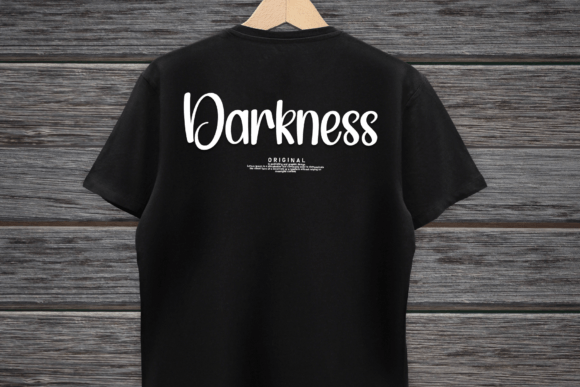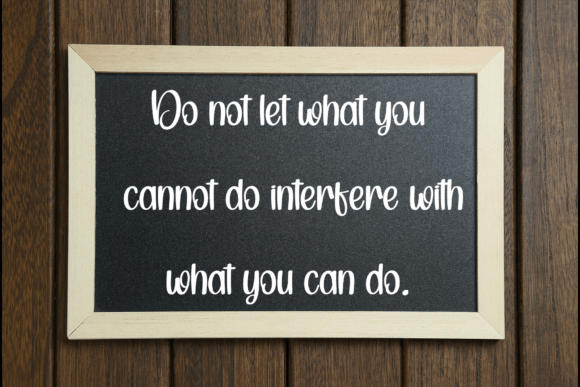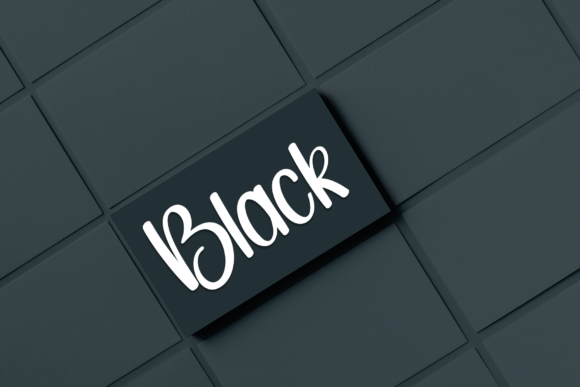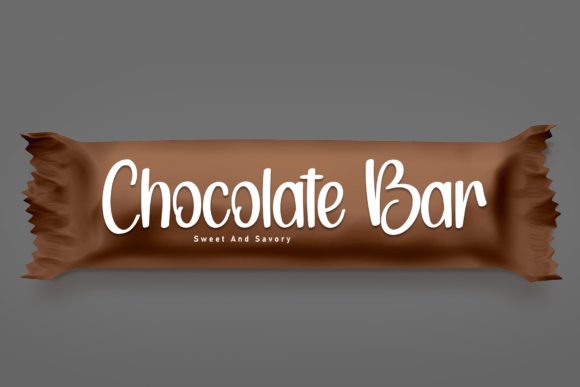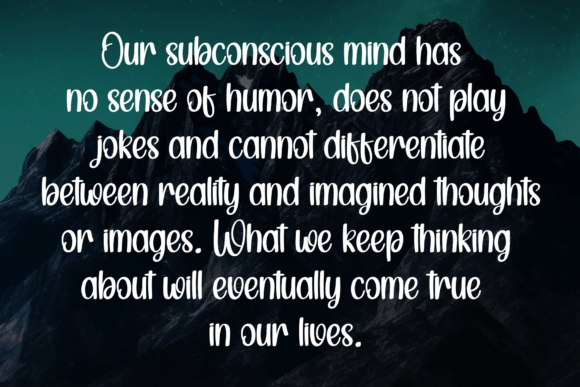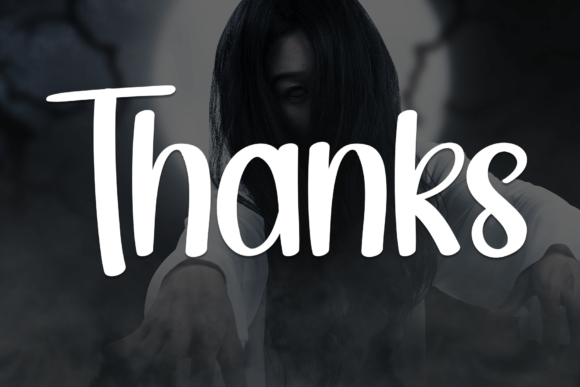
The Fright Maiden Font: A Sweet and Friendly Companion for Your Designs
I’ll never forget the moment I stumbled upon the Fright Maiden font. I was working on a project for a client who wanted a custom wedding invitation, and I was struggling to find the perfect font. The design needed to be elegant, yet playful; sophisticated, yet approachable. As I scrolled through my font library, I came across Fright Maiden, and it was love at first sight! ✨
This sweet and friendly handwritten font has become a staple in my design toolkit, and I’m excited to share its charm with you. In this article, we’ll explore what makes Fright Maiden special, its uses, and some practical tips on how to get the most out of it.
- ✨ Unique and natural style: Fright Maiden has a distinct, hand-crafted feel that sets it apart from more generic fonts.
- ✅ Versatility: This font can be used for a wide range of projects, from wedding invitations to branding, and even digital media.
- 💕 Emotional connection: Fright Maiden has a warm, friendly vibe that can help create an emotional connection with your audience.
While Fright Maiden is an excellent font, it’s not perfect. Here are a few things to keep in mind:
- ⚠️ Legibility at small sizes: Like many handwritten fonts, Fright Maiden can become a bit tricky to read at very small sizes. Make sure to test it at different sizes to ensure it’s legible for your project.
- 🤔 Overuse of swashes: While Fright Maiden has some beautiful swashes and stylistic alternates, be careful not to overuse them. Too many swashes can make your text look cluttered and messy.
The Story Behind Fright Maiden
Fright Maiden was designed with the intention of creating a font that was both sweet and friendly. The designer wanted to craft a font that would evoke a sense of warmth and approachability, making it perfect for designs that require a personal touch.
Q: Is Fright Maiden suitable for body text?
A: While Fright Maiden is a beautiful font, it’s best suited for headlines and titles. Its unique style and hand-crafted feel make it less suitable for long blocks of body text.
Q: Does Fright Maiden have any special features?
A: Yes, Fright Maiden has a range of OpenType features, including swashes, stylistic alternates, and glyphs. These features can help you create unique and customized designs.
Q: Is Fright Maiden easy to read?
A: Fright Maiden is generally easy to read, but like many handwritten fonts, it can become tricky to read at very small sizes. Make sure to test it at different sizes to ensure it’s legible for your project.